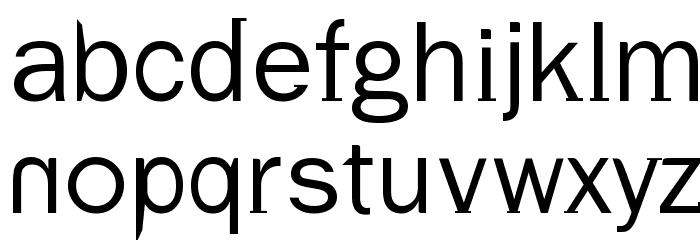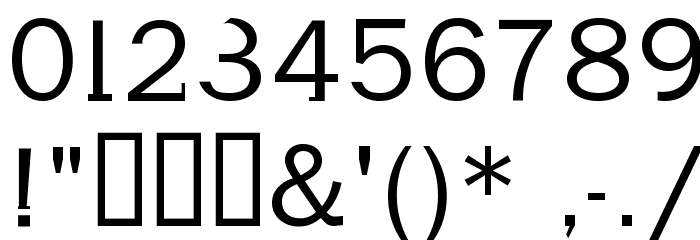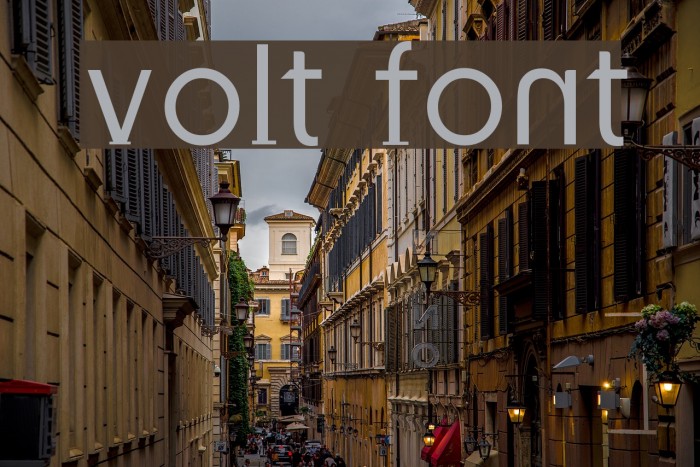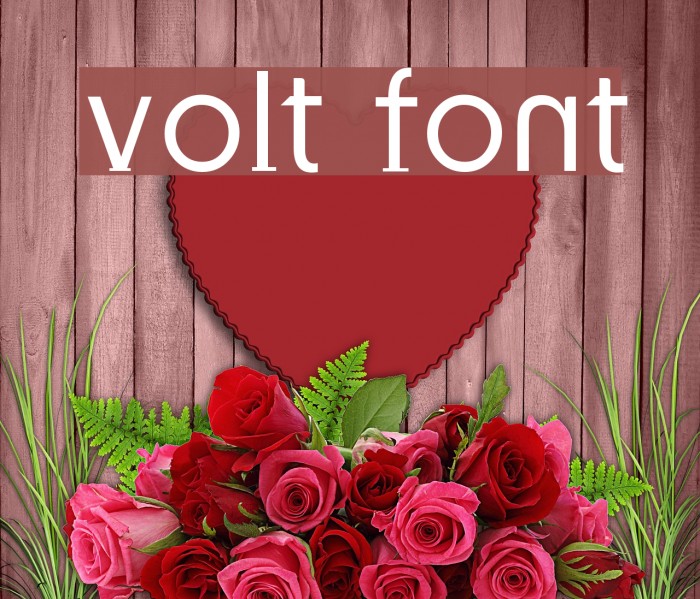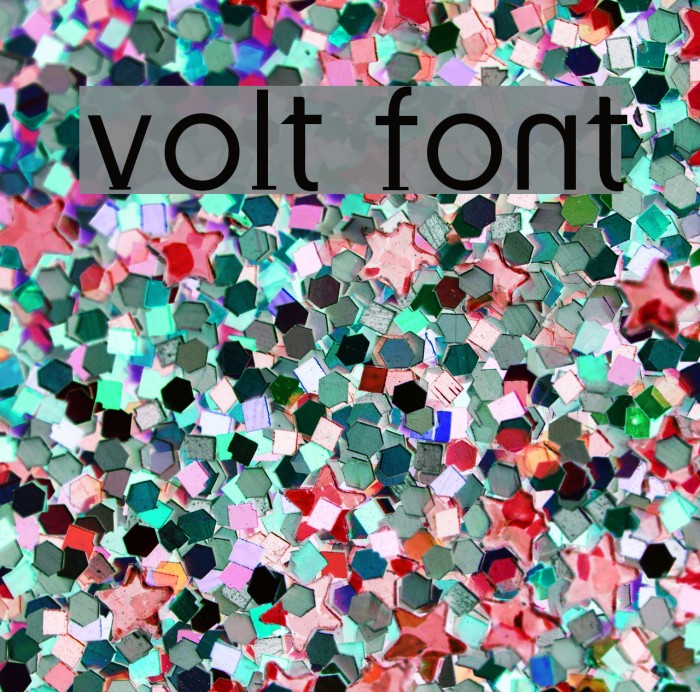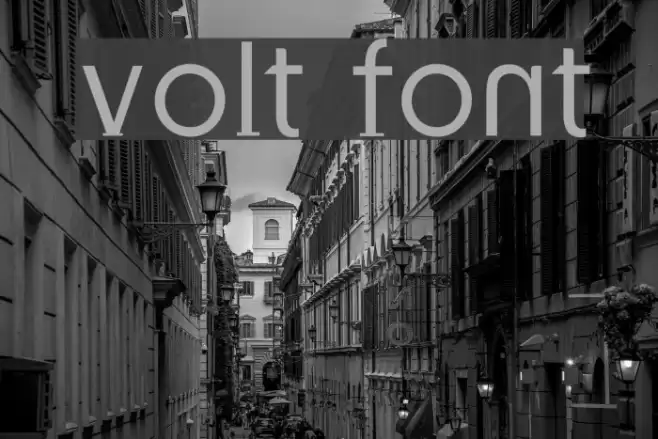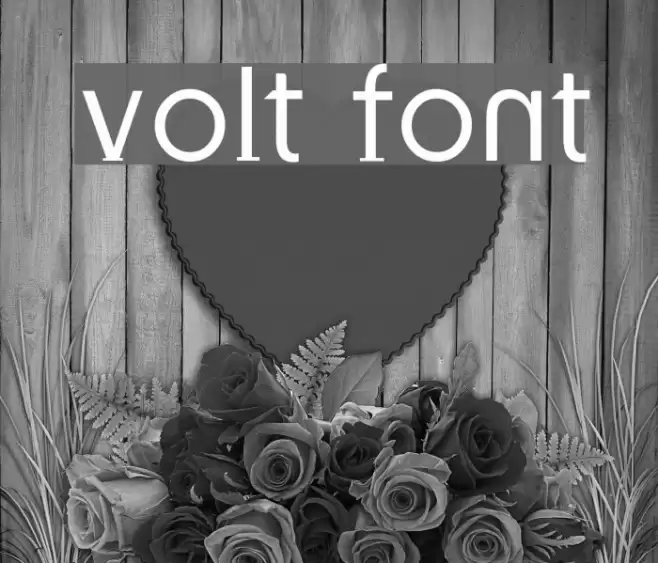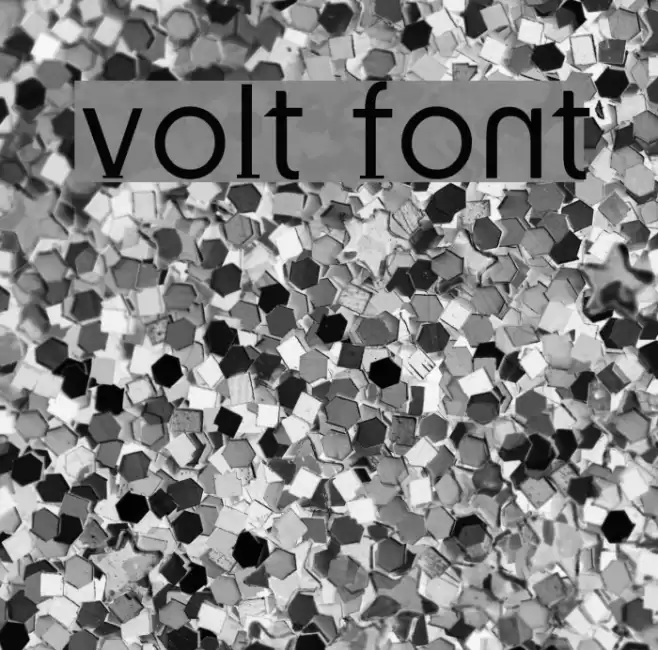
Volt Font
This font features a clean and modern sans-serif design with a geometric structure. The characters are well-balanced with a consistent stroke width, giving it a uniform appearance. The rounded edges and open counters enhance readability, making it suitable for various digital and print applications. The numerals are clear and distinct, and the special characters are designed to complement the overall style. This font's simplicity and clarity make it versatile for a wide range of uses.